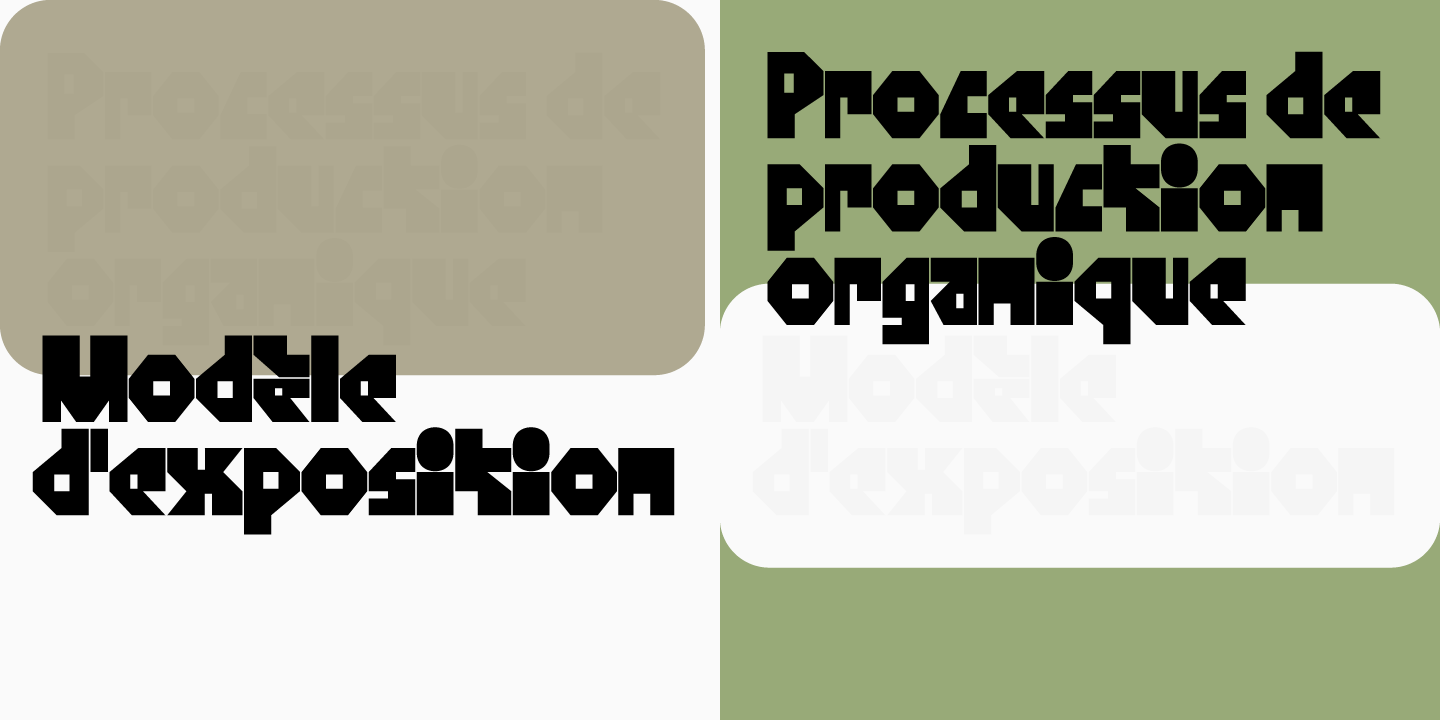
The Gikit Font is perfect for modern tech startup branding, digital app interfaces, contemporary web designs, software company logos, innovation-focused presentations, coding bootcamp materials, tech conference signage, and forward-thinking marketing campaigns. This dynamic typeface excels in projects for technology firms, digital agencies, software developers, startup incubators, and businesses requiring cutting-edge typography that conveys innovation, efficiency, and technological advancement.
What makes the Gikit Font exciting is its perfect fusion of technical precision and approachable modernity with streamlined efficiency and digital-native aesthetics. The font features clean, geometric letterforms with subtle tech-inspired details and optimized spacing that ensures exceptional performance across all digital platforms. Its contemporary character and technological sophistication make it ideal for brands seeking to establish credibility in competitive tech markets while maintaining user-friendly accessibility. The font's innovative spirit and digital precision create immediate trust in technology-focused environments.
The Gikit Font family includes tech-optimized variations: Thin, Light, Regular, Medium, Semi Bold, Bold, and Black weights, each designed for optimal digital performance. Each weight maintains superior screen readability while offering different hierarchical levels for complex user interfaces and technical documentation. The family also features coding symbols, tech icons, mathematical operators, and digital elements essential for technology-focused design projects.
Whether you're developing tech brand identities, creating digital marketing materials, or designing innovative promotional campaigns, the Gikit Font Free Download provides the ultimate solution for projects requiring modern technology typography. This exceptional typeface brings genuine digital innovation to design work, making it an indispensable resource for designers working with tech companies, software platforms, and organizations embracing technological advancement and digital transformation.